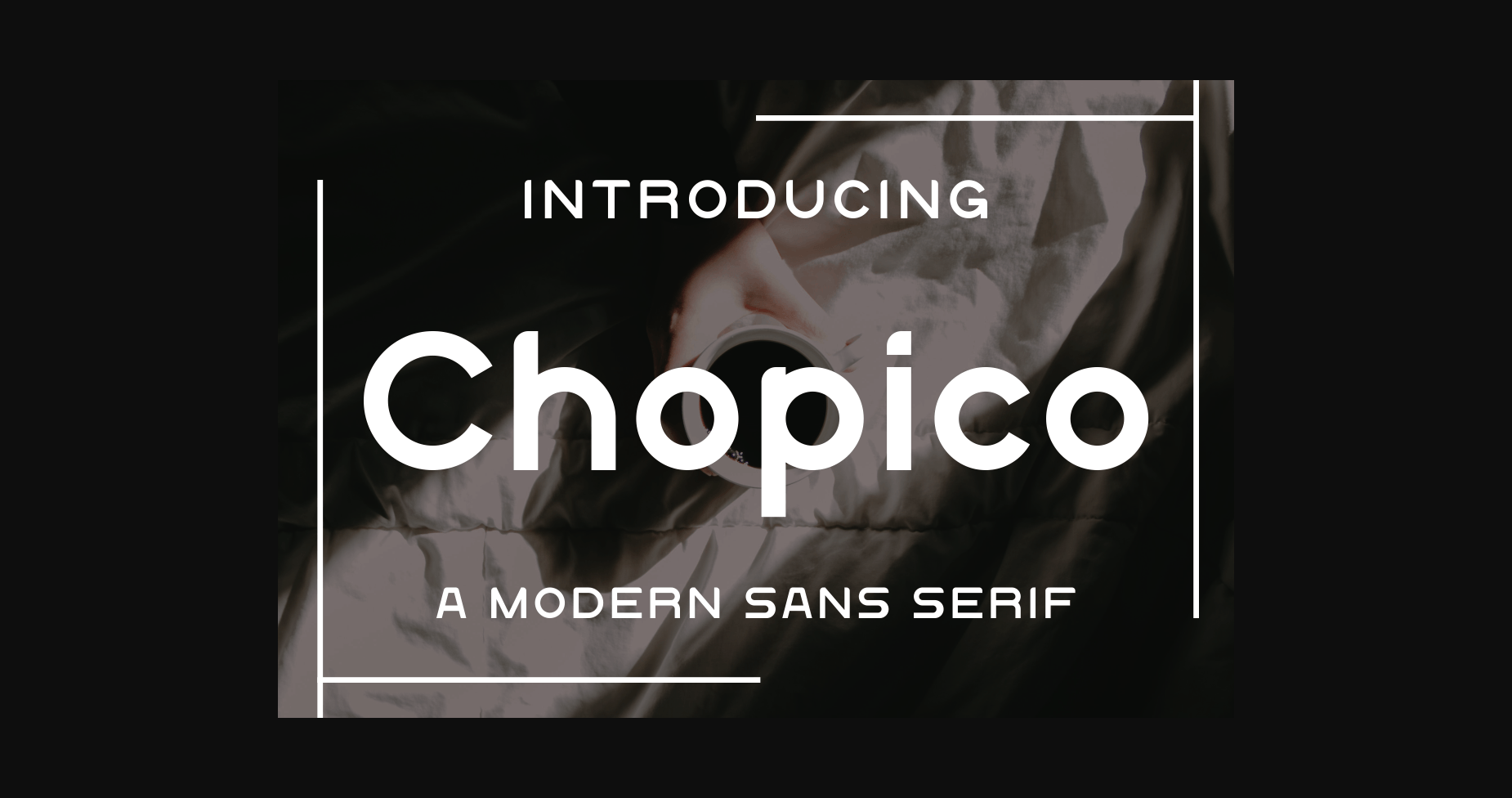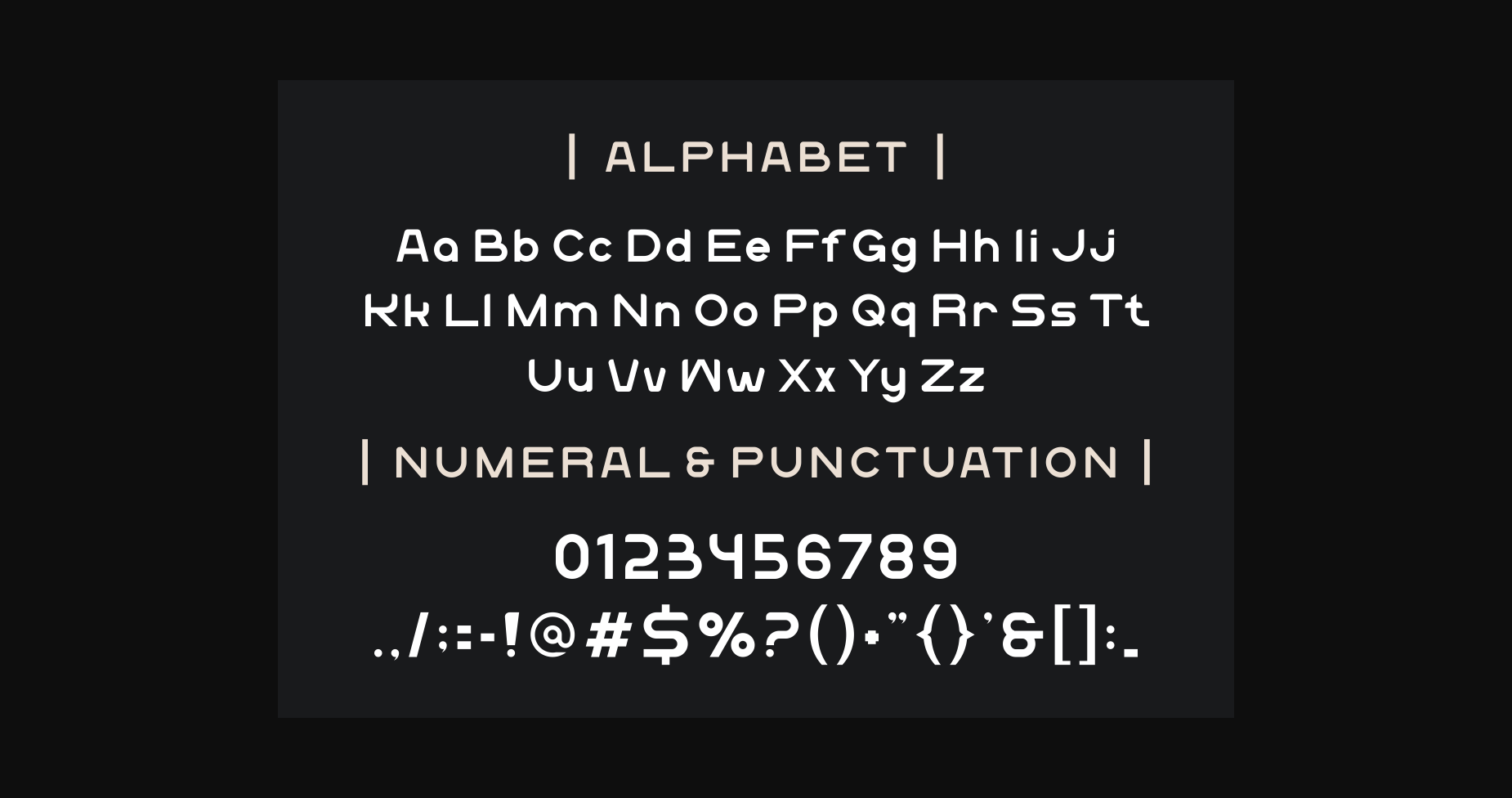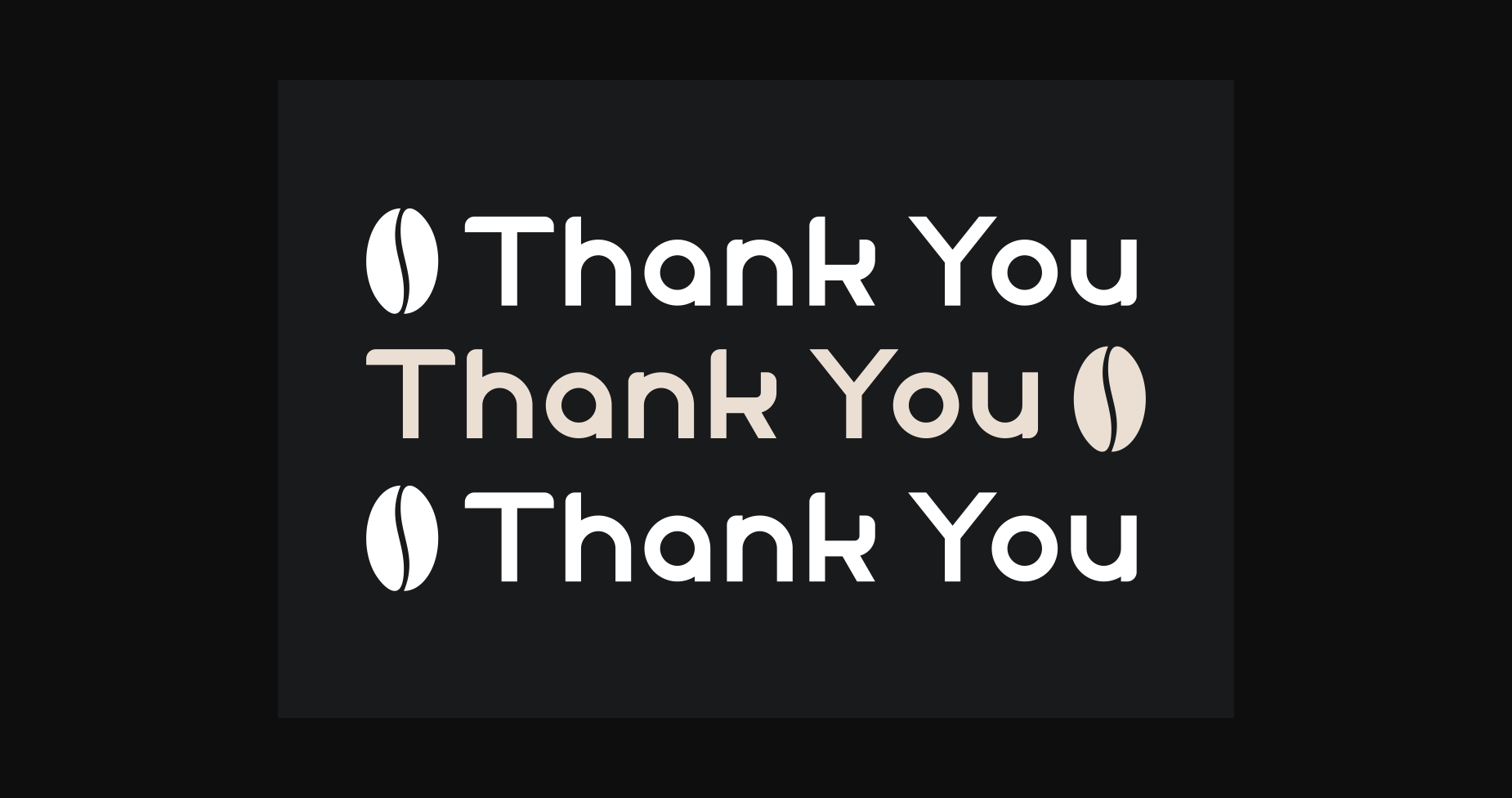
Chopico is a modern and natural sans serif font. No matter the topic, this font will be an incredible asset to your fonts’ library, as it has the potential to elevate any creation.